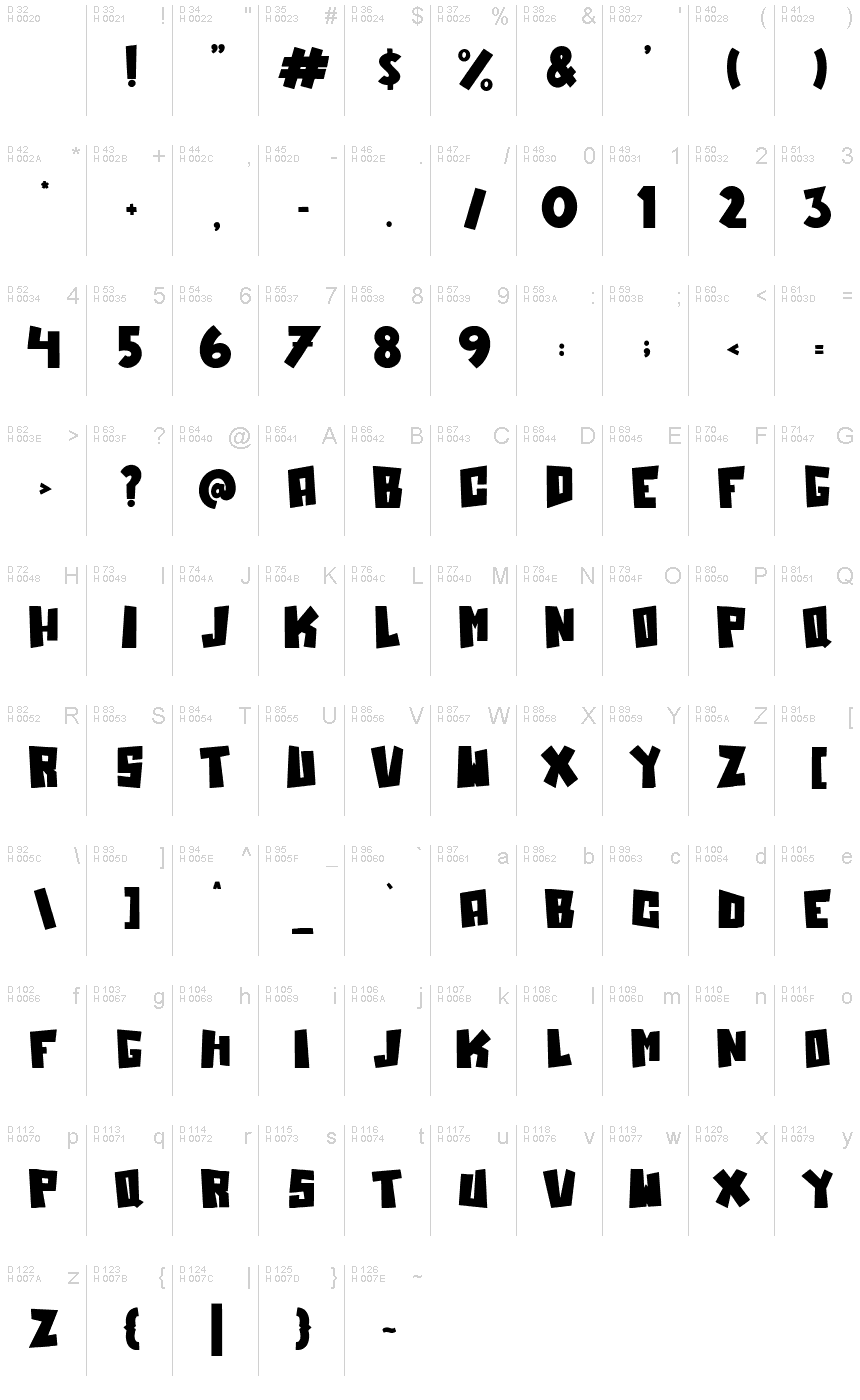
Santa Day
Introducing Santa Day, a bold cartoon display font designed by HATF. Perfect for creating eye-catching logos, festive greeting cards, and holiday-inspired illustrations. Add a touch of magic to your projects this season with Santa Day!